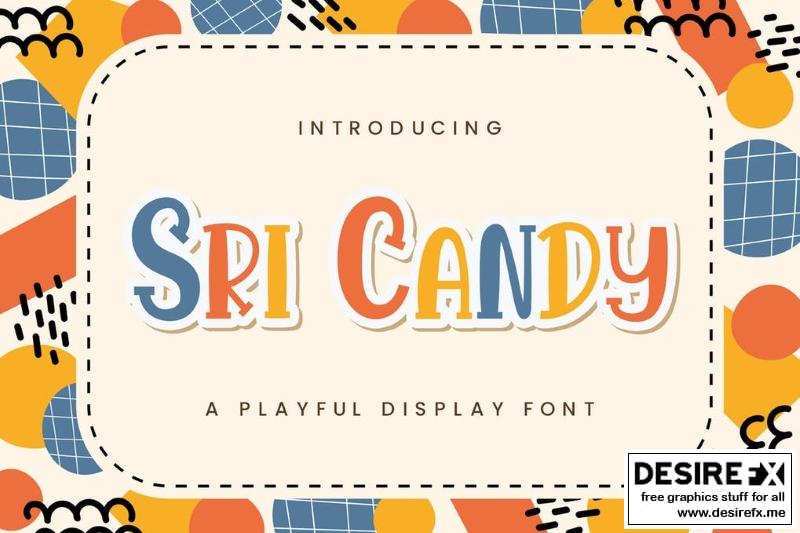
Sri Candy – Playful Display Font
Introducing Sri Candy – Playful Display Font
Sri Candy is a fun display font. Playful and fresh, this font will be a hit for each of your children or school projects!